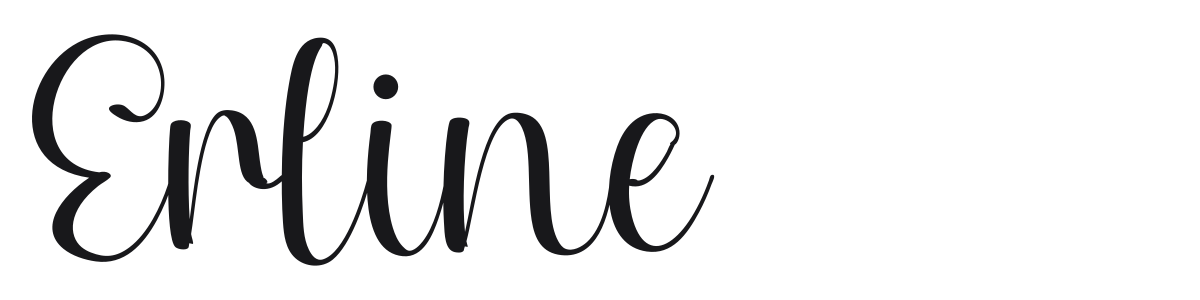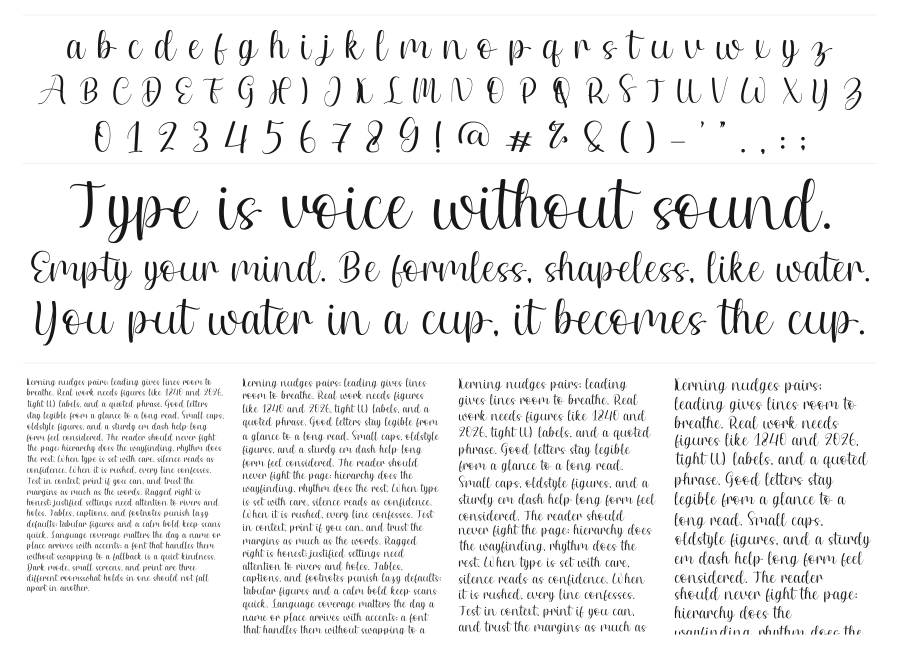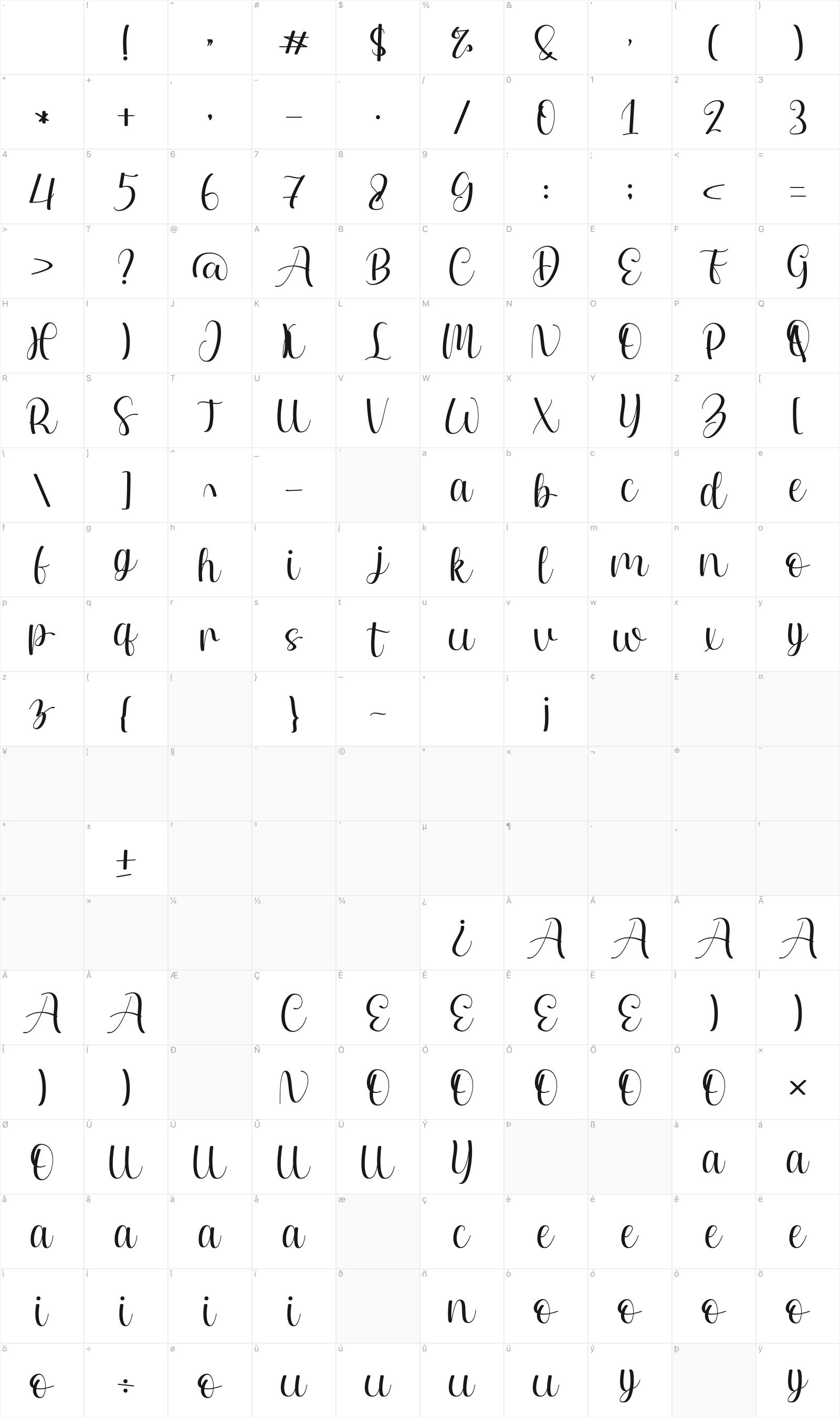
Erline
Erline is a casual connected script with flowing strokes, generous loops, and a breezy calligraphic rhythm. The moderate stroke contrast keeps it feeling handcrafted without tipping into formal territory. It suits branding, wedding stationery, packaging, and anywhere a warm, personal touch is needed.